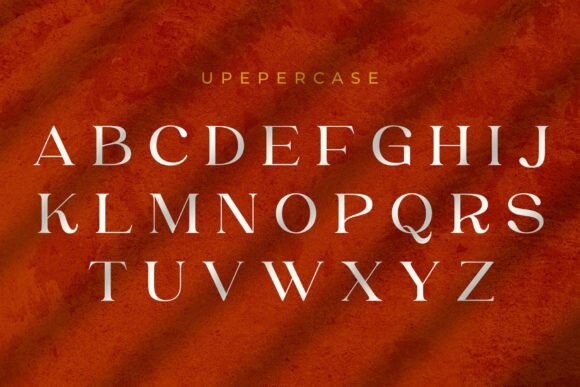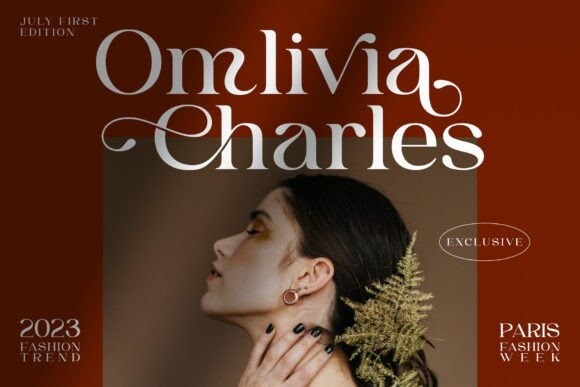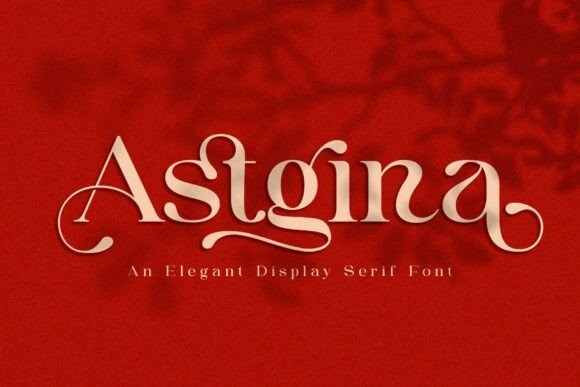
Astgina Font
Astgina Font is a stylish serif font that effortlessly blends classic sophistication with contemporary finesse. Its meticulously crafted letterforms, adorned with subtle details, exude timeless elegance. Ideal for projects that demand a refined and versatile typeface, Astgina adds a distinctive touch of grace and sophistication to your designs.